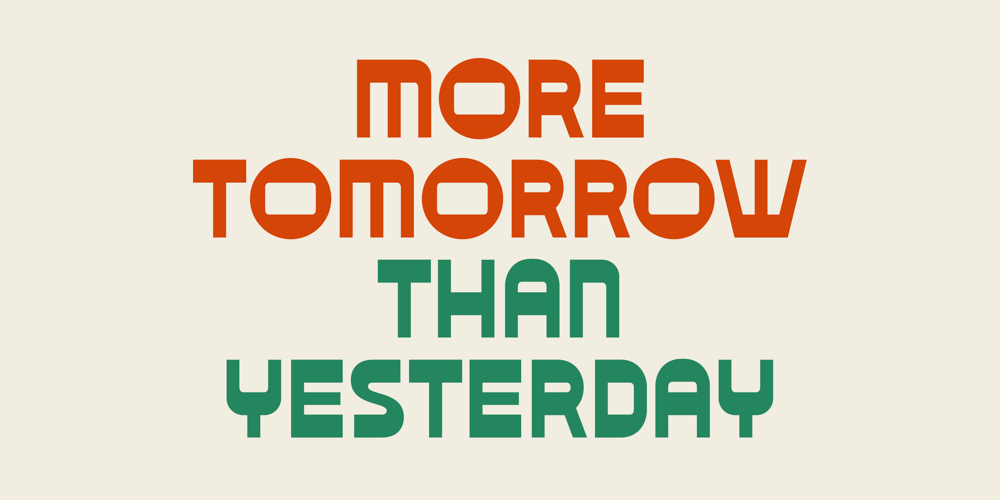
Word From Radio Font Family was designed by Ryoichi Tsunekawa and published by Dharma Type. Word From Radio contains 1 styles and family package options. Based on retro vinyl records in the middle of 20th century. the mixture of funky, hippie and mid-century’s futuristics. There are three other fonts designed by in the same concept. -African Elephant Trunk -Moon Star Soul -Rebel Train Goes -Word From Radio